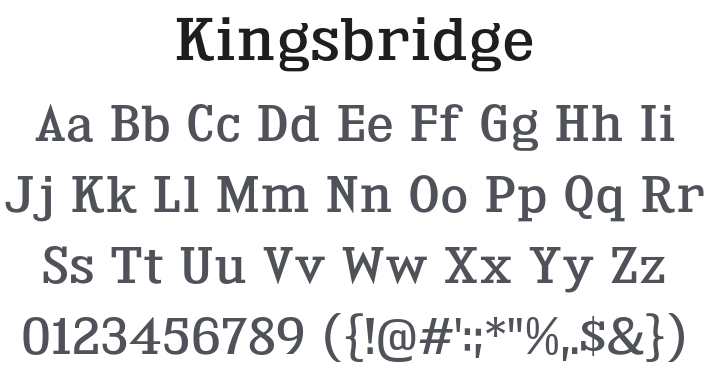
Kingsbridge Font Family
About Kingsbridge
Kingsbridge is a friendly slab-serif typeface where square, sturdy slabs meet razor-sharp pointed apexes on letters like A, M, N, V, and W — creating a distinctive tension between warmth and precision. Its exceptional range of 56 styles across 7 weights, 4 widths, and italics makes it genuinely versatile. Great for editorial design, branding, signage, logos, and any project needing a reliable, characterful workhorse serif.